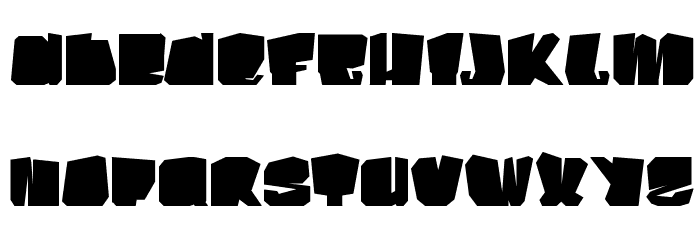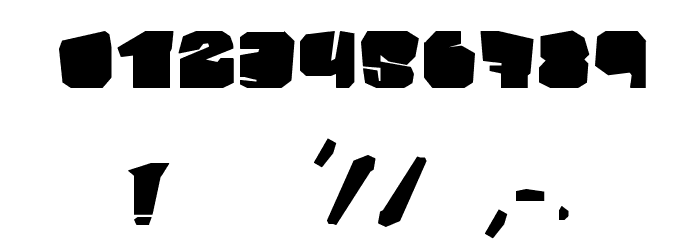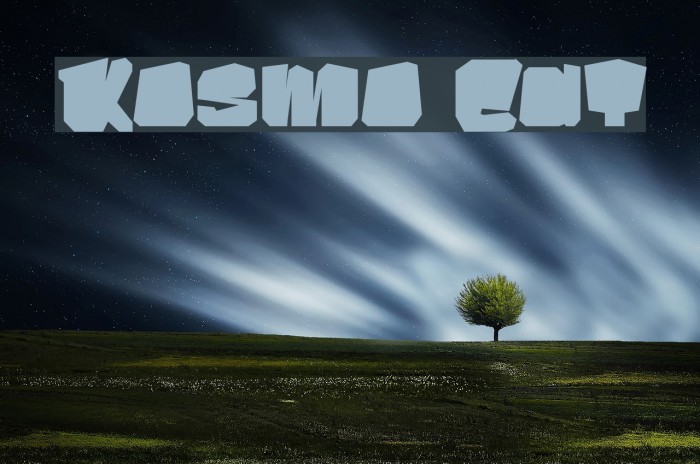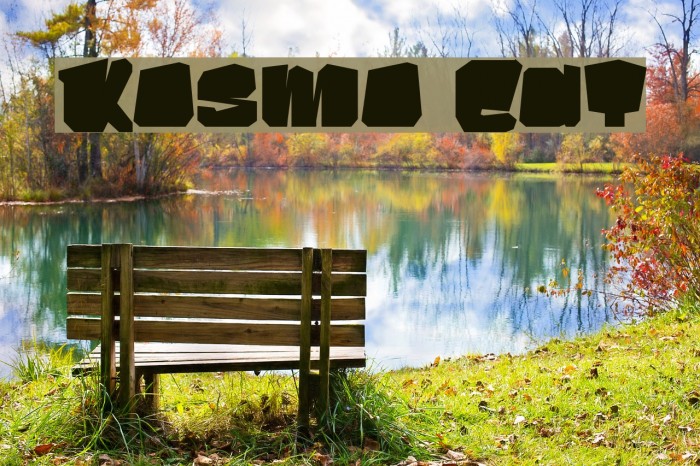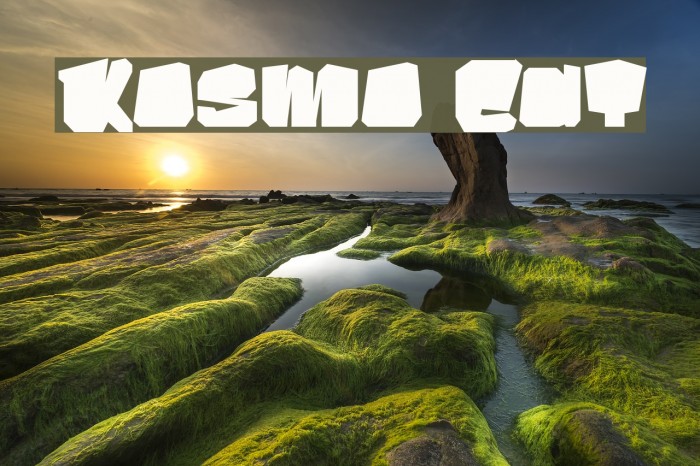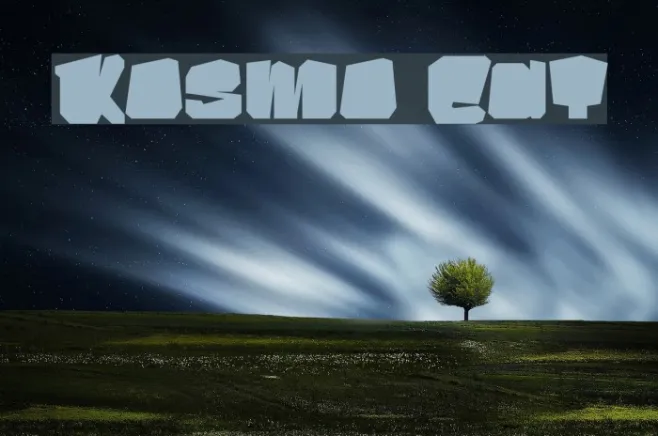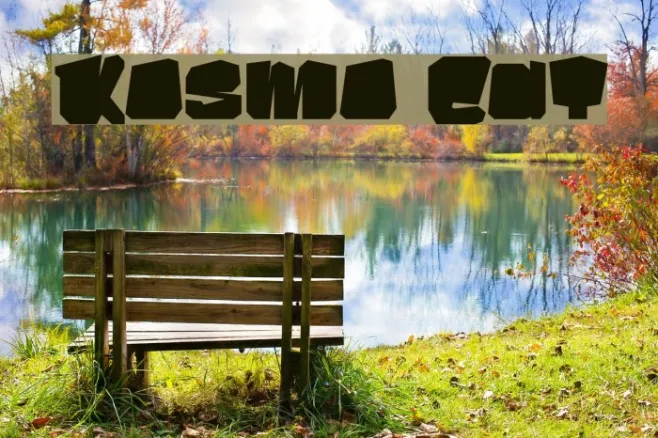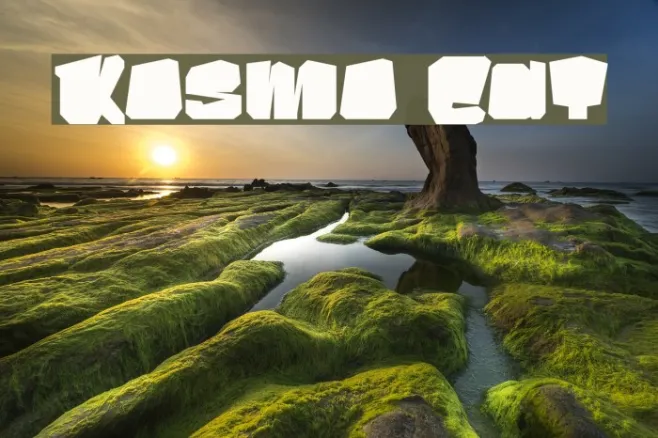
Kosmo Cat Font
This font features a bold, geometric design with a distinct, angular style. The characters are constructed with sharp edges and a blocky appearance, giving them a futuristic and dynamic look. The uppercase and lowercase letters maintain a consistent width, creating a uniform and cohesive appearance. Numbers and special characters follow the same design principles, ensuring a harmonious overall aesthetic. The font's unique style makes it stand out, ideal for projects that require a strong visual impact.
A bold, geometric font with sharp, angular characters for a futuristic look.
- Proposed Projects: Ideal for sci-fi themed designs, video game titles, posters, and branding that requires a modern, edgy appearance.
- Overall Style: Futuristic, Modern